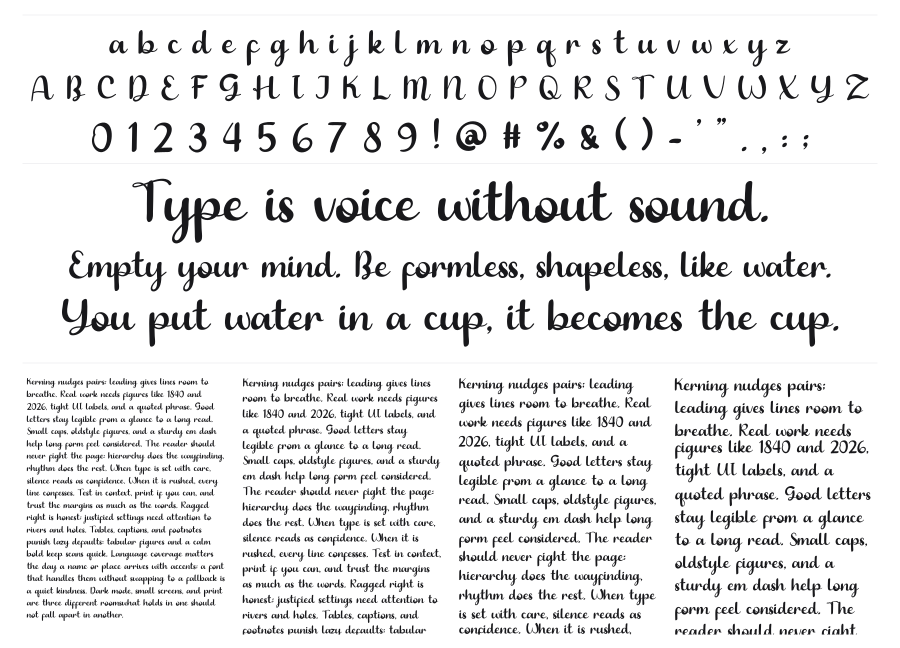
Emberly
Emberly is a bold connected casual script with flowing strokes and a natural, handwritten rhythm. The generous loops and smooth letter joins give it warmth without sacrificing elegance, sitting comfortably between everyday handwriting and refined calligraphy. It reads well at display sizes on wedding stationery, logos, and anywhere that calls for a personal, crafted touch.